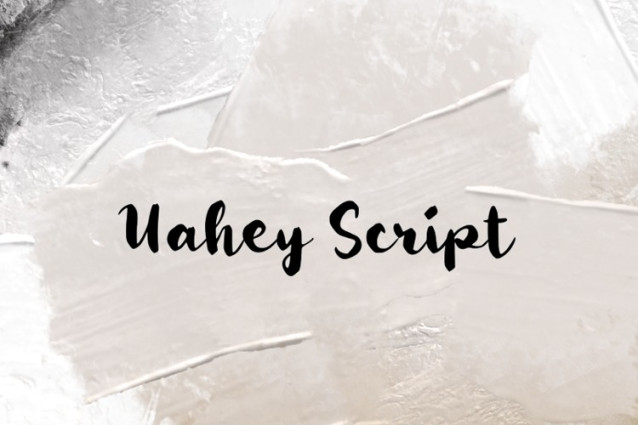
Uahey Script Font
Uahey Script Font, It would be a perfect choice to design posters, affiches, logos, t-shirt and magazine prints, eye-pleasing typographic designs and more.